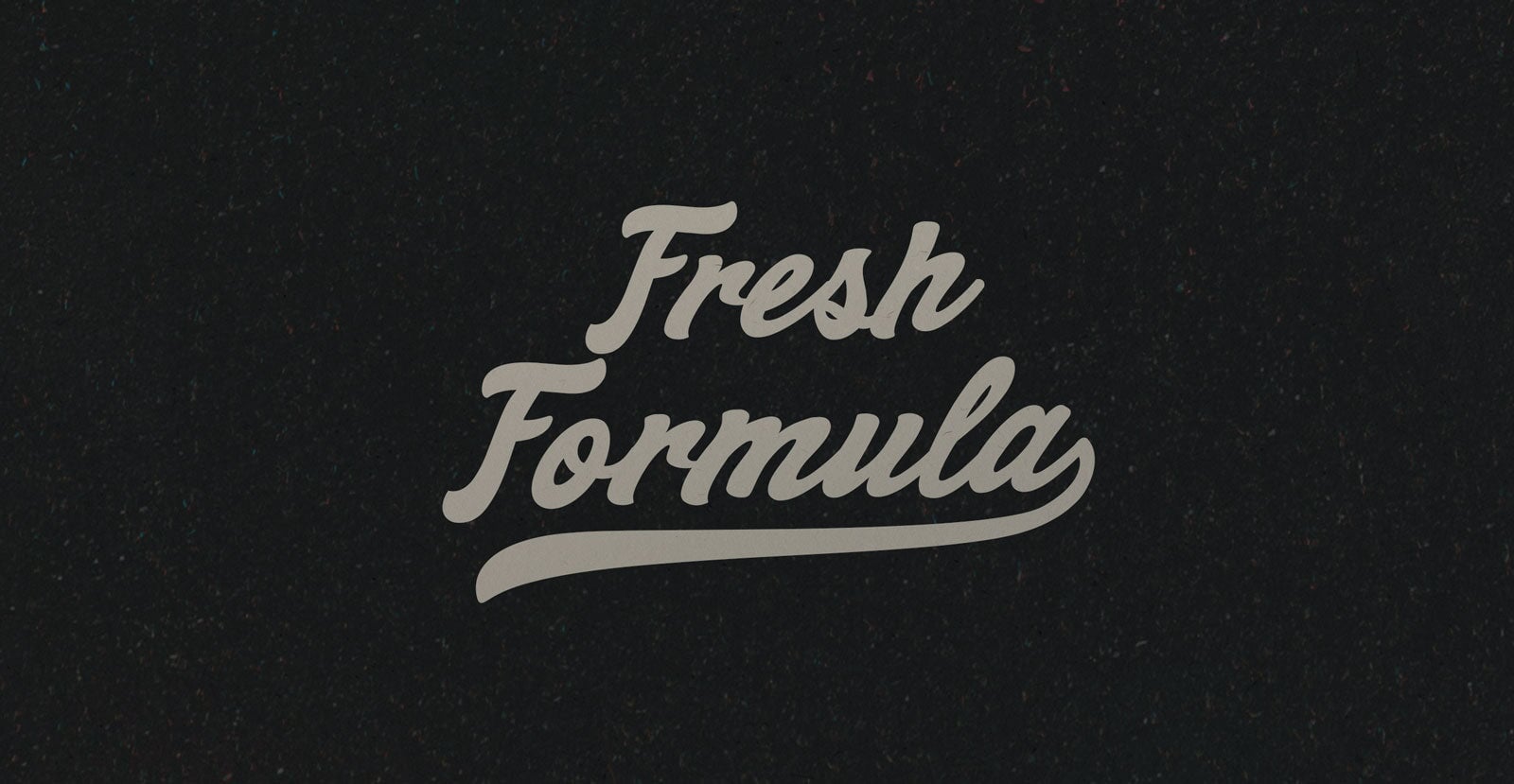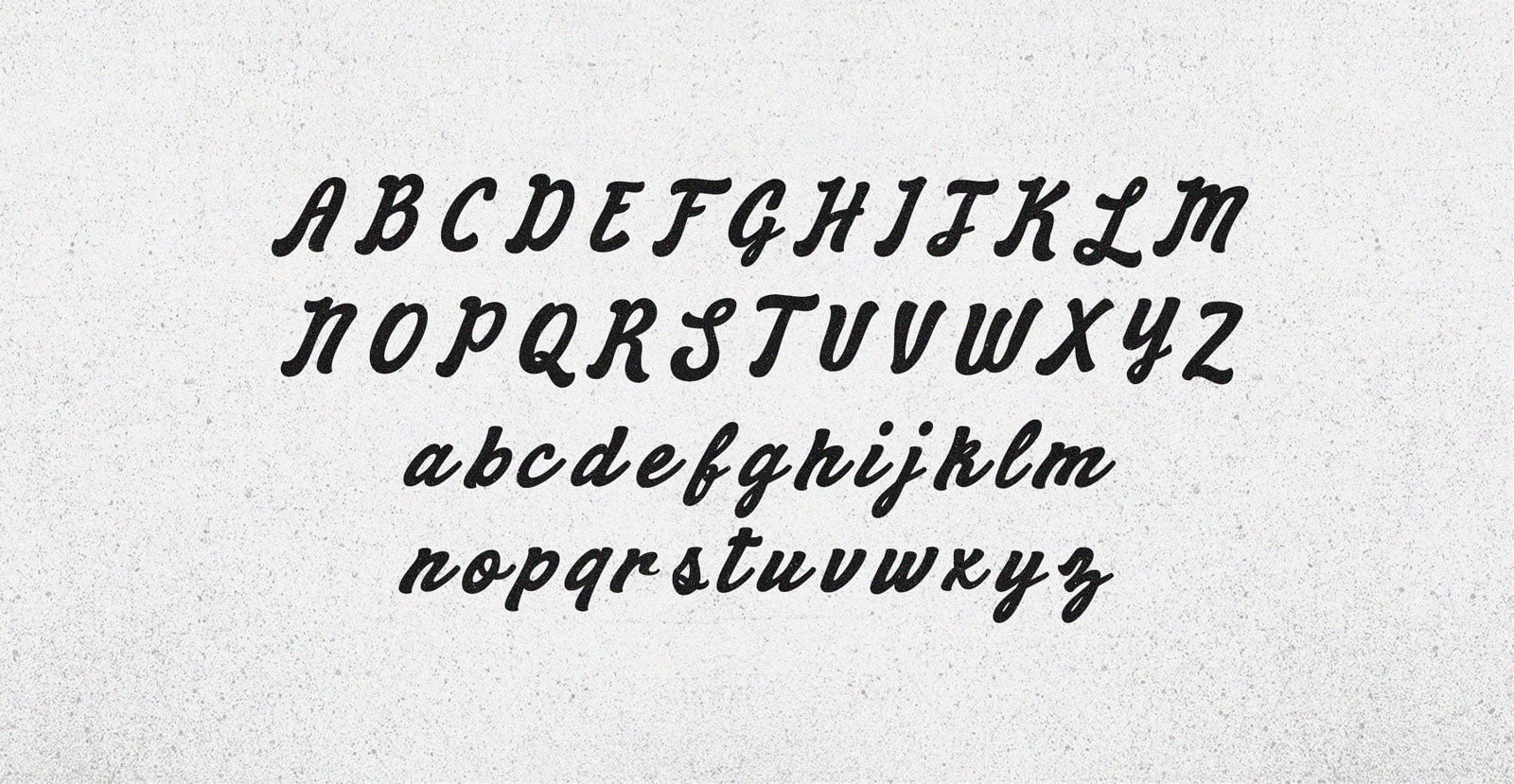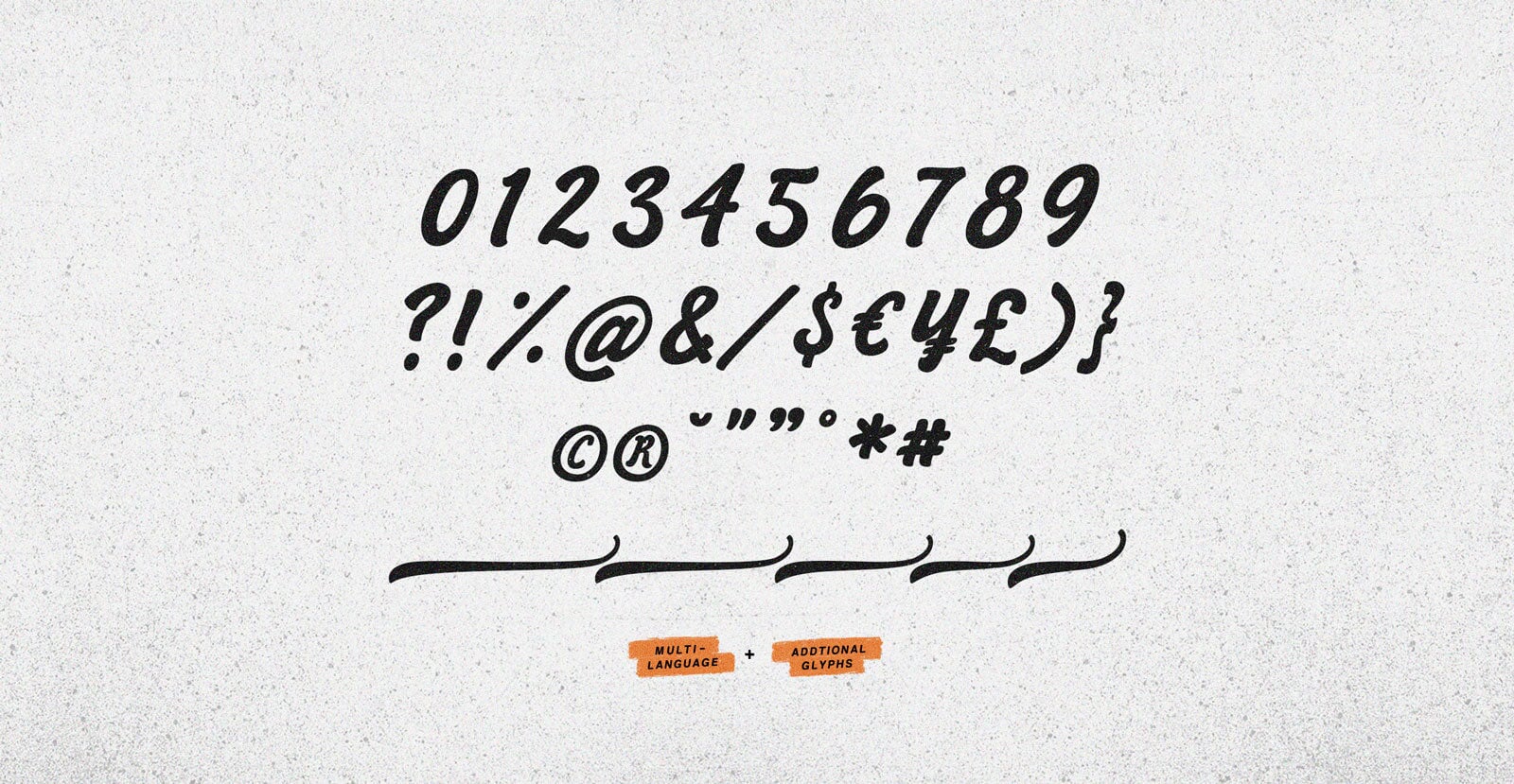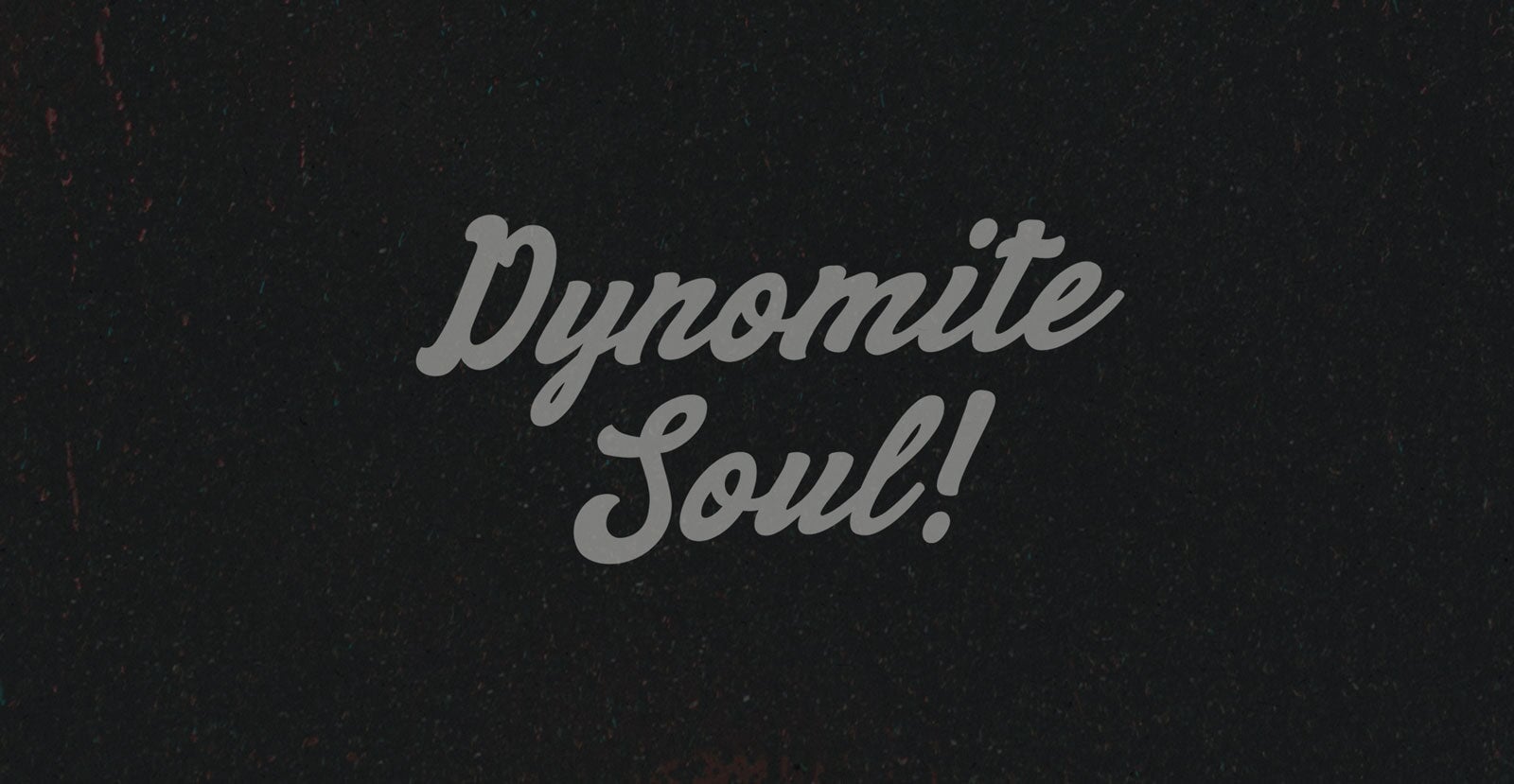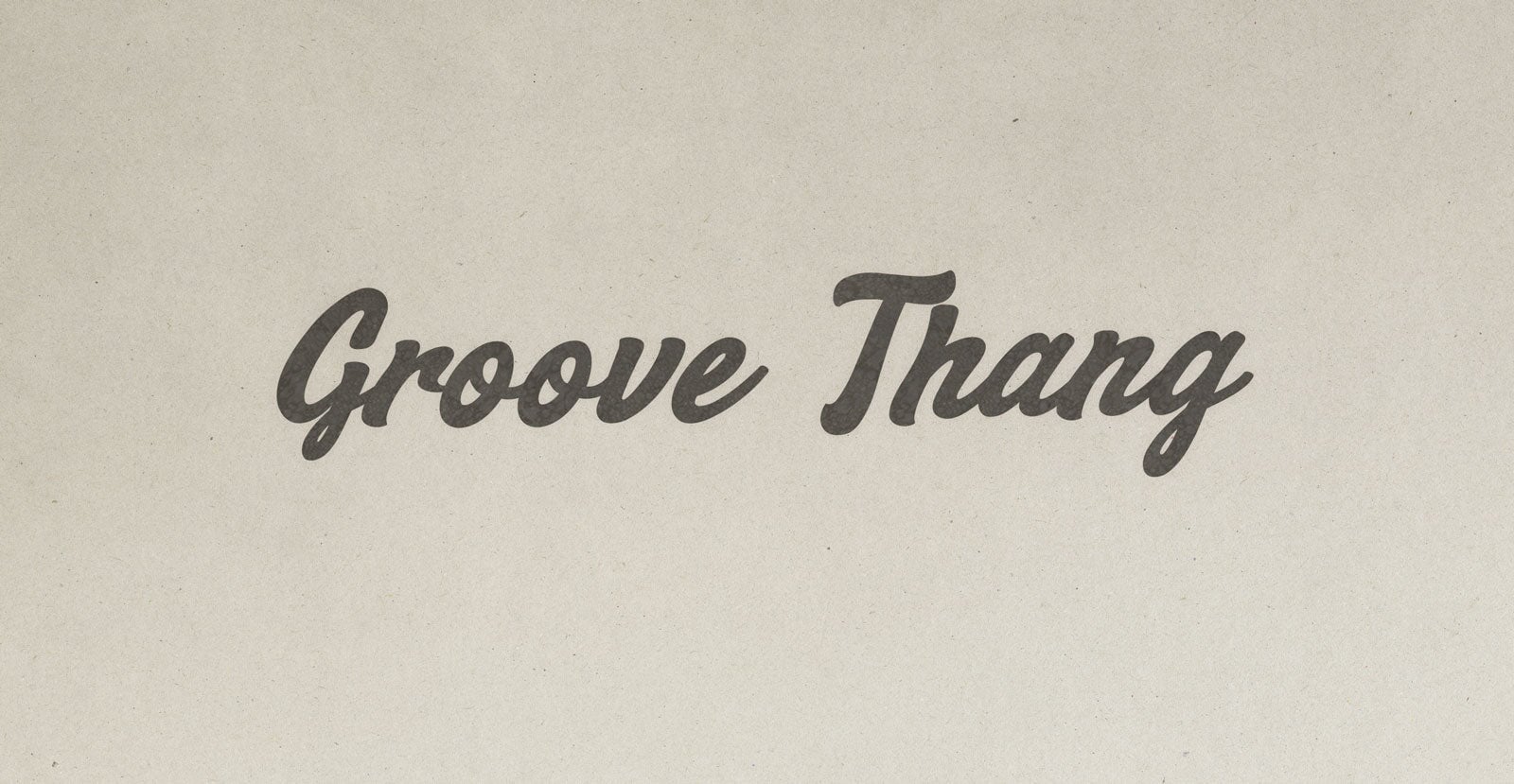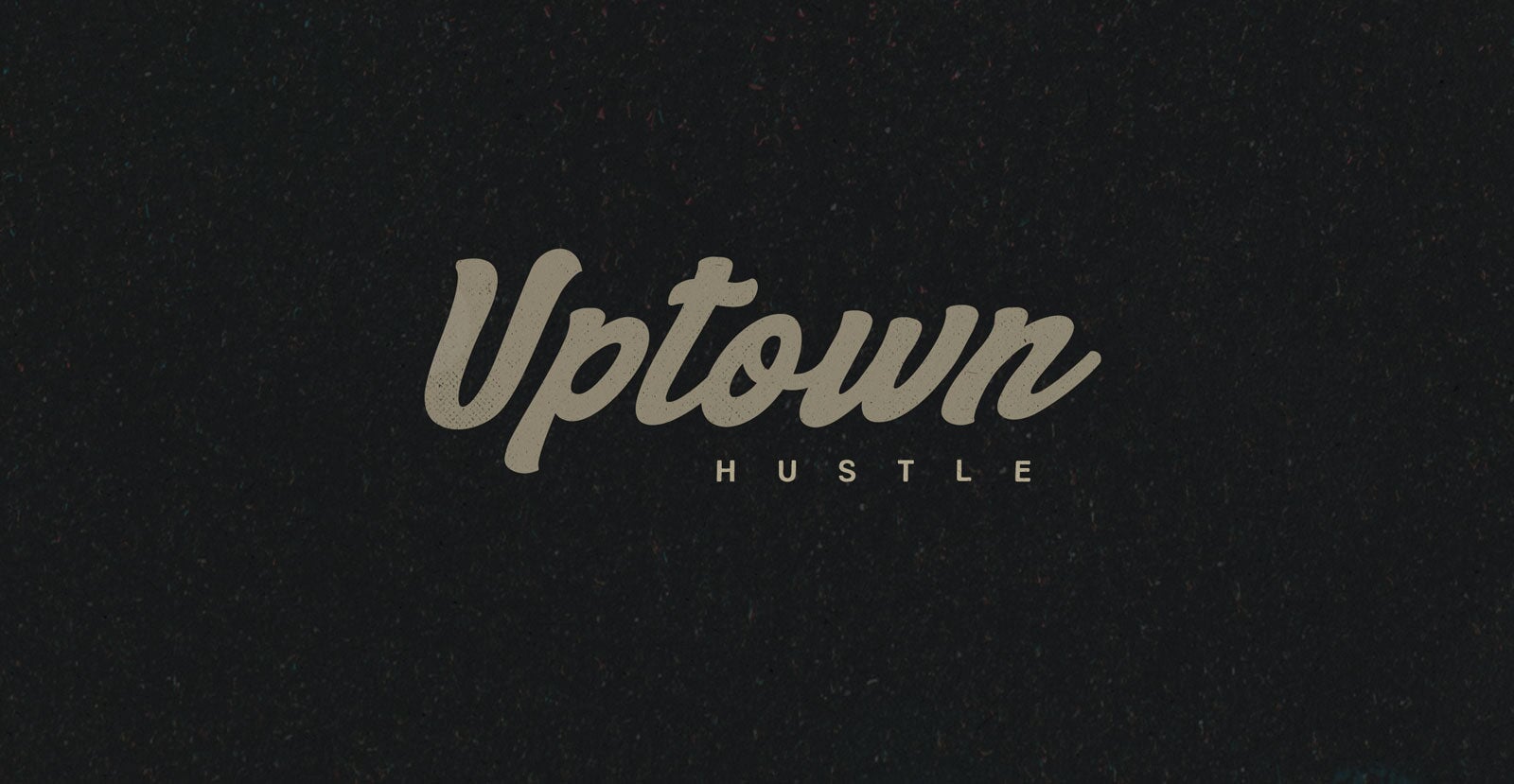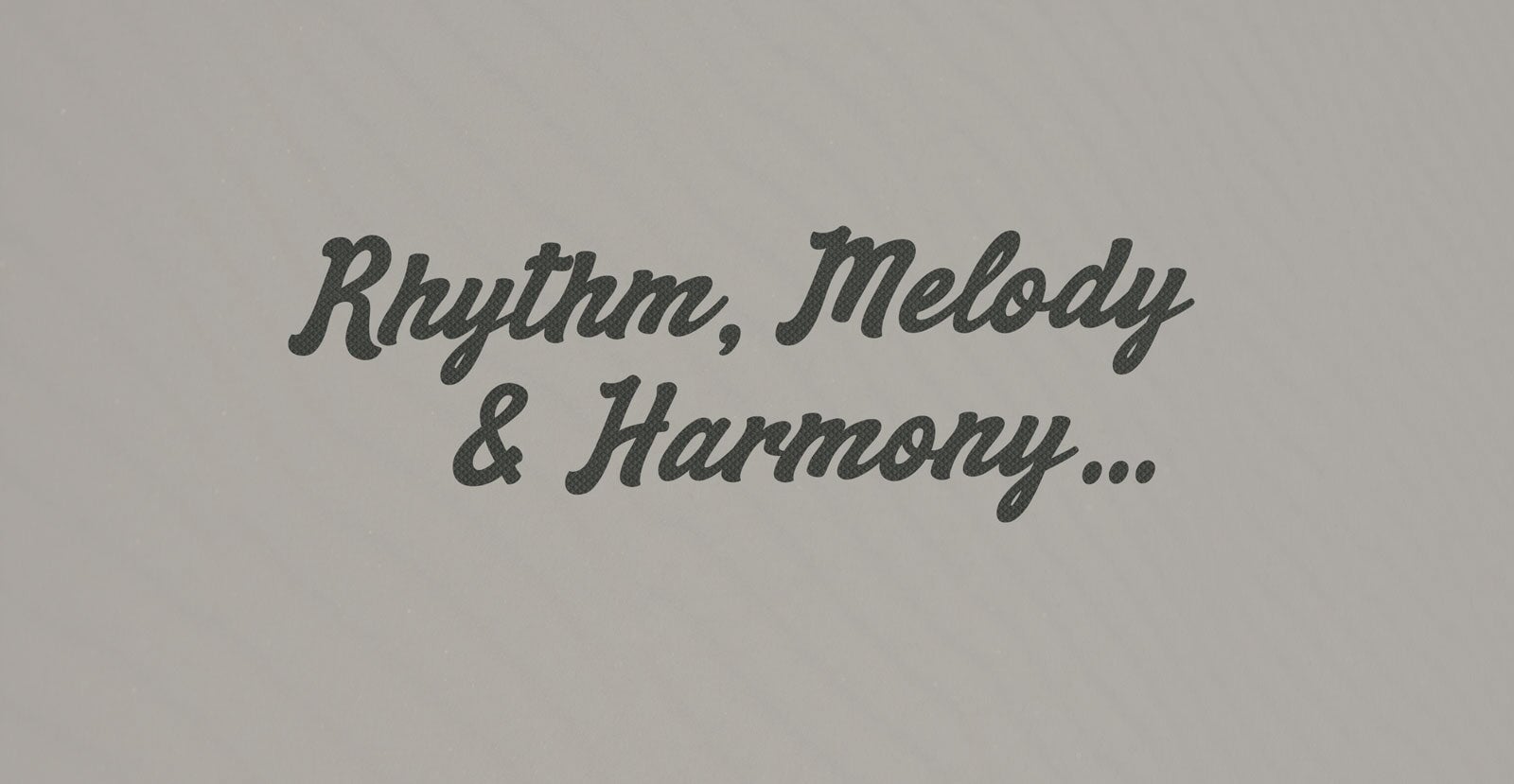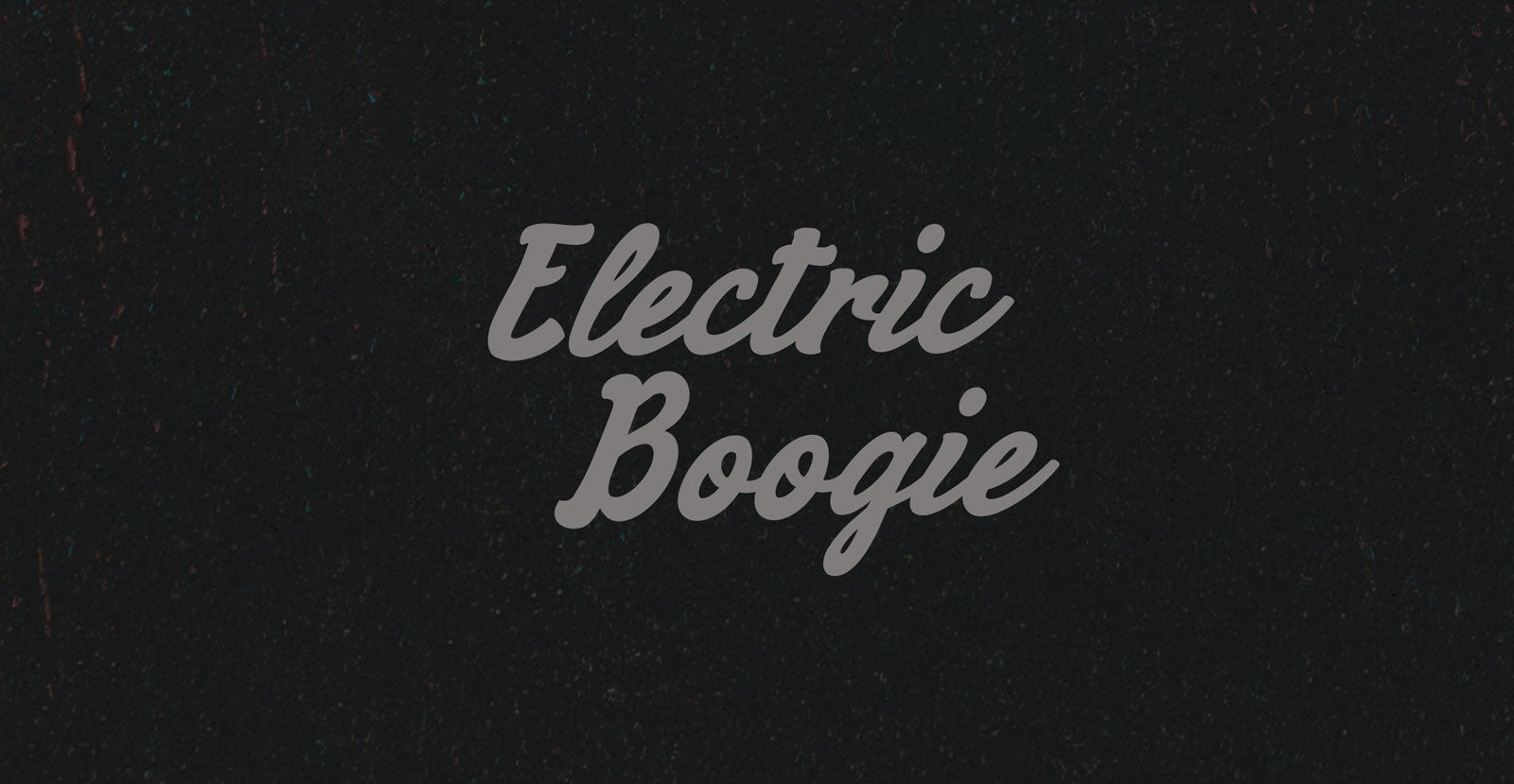
Fresh Formula
Handwritten Vintage Script Font
The same great proof from a Fresh Formula. So busy implying answers it forgot to stop and smell the flowers that sprang up in its tracks. Lodged in the fruitful heart of progress, steady beating down the ribcage.